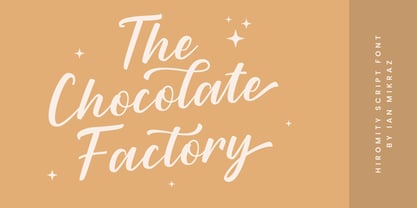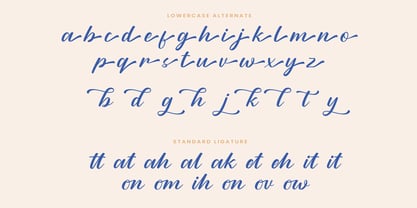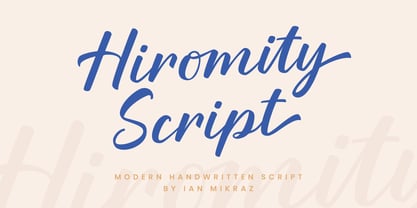
Hiromity Script
by IanMikraz Studio
The Hiromity Script Font Family was designed by Ian Mikraz and published by IanMikraz Studio. Hiromity Script contains 1 styles. More about this family
Introducing Hiromity Script, a modern handwritten script that brings a touch of elegance and sophistication to your designs. This font is perfect for a wide range of creative projects, from wedding invitations and greeting cards to logos and branding materials. With its smooth curves and stylish lines, Hiromity Script captures the essence of modern calligraphy while maintaining the authenticity of hand-drawn lettering. Each character is meticulously crafted to ensure a seamless and harmonious look, making your text visually captivating and professionally polished.
Designers: Ian Mikraz
Foundry: IanMikraz Studio
About IanMikraz Studio